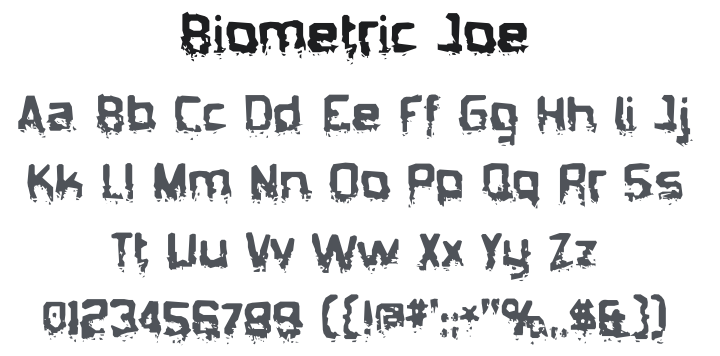
Biometric Joe Font
About Biometric Joe
Biometric Joe is a decaying, crumbling horror display typeface with a distinctly crusty, deteriorating texture — letters look as if they're rotting or flaking apart. Despite its grotesque charm, it retains legibility. Perfect for Halloween designs, horror game titles, zombie-themed branding, dark editorial headlines, and any project that needs a gritty, sinister, distressed personality.